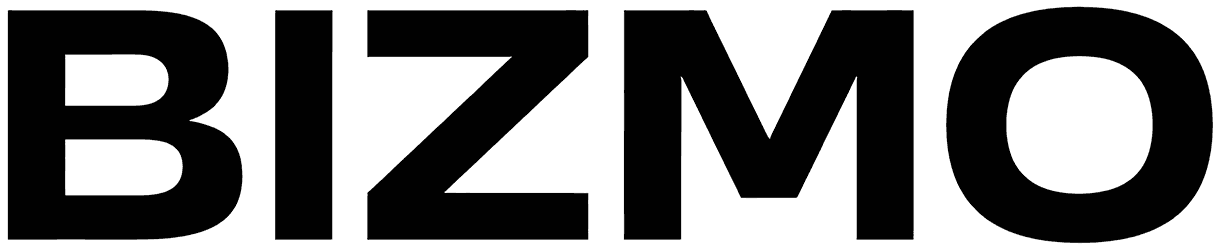
Bizmo Font
Designed byEko Bimantara
The simple style of a sans serif font like the present offer would be a perfect selection for countless projects from a fashion event advertising to a holding logo. The Bizmo font consists of modern, bold, and humble characters that can reflect a professional vibe to your observers. Even without numbers, this sans serif font can be perfect for different layouts.